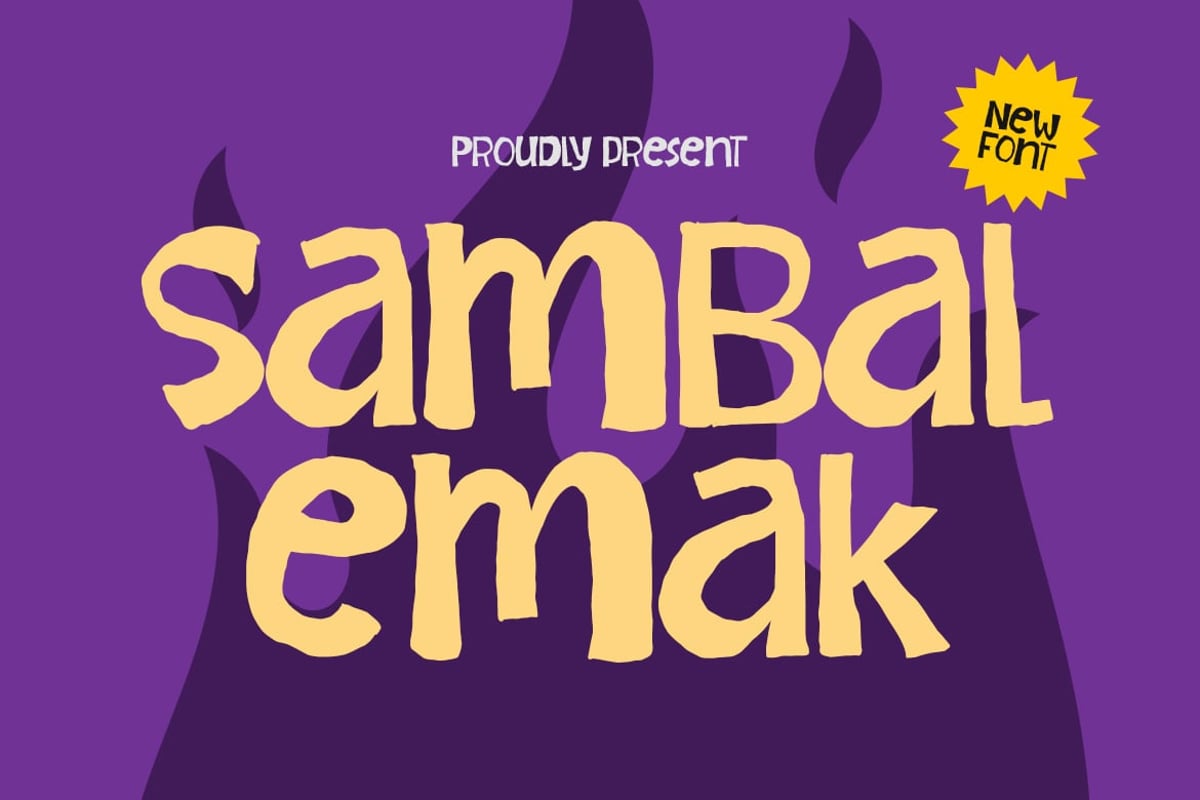
Sambal Emak - Food Font
Add artisanal charm to your food branding with this playfully irregular display font.
This heavy-weight typeface showcases a distinctive hand-cut aesthetic with letterforms that bounce playfully across inconsistent baselines. The varying stroke thicknesses and manual creation process give each character an authentic, artisanal feel that's perfect for establishing a handcrafted brand identity.
Perfect For:
- Bakery and café branding
- Food and beverage logos
- Restaurant menus and signage
- Coffee shop and donut shop designs
- Food packaging and labels
- Social media food promotions
- Kitchen-themed posters and prints
- Culinary blogs and recipe graphics